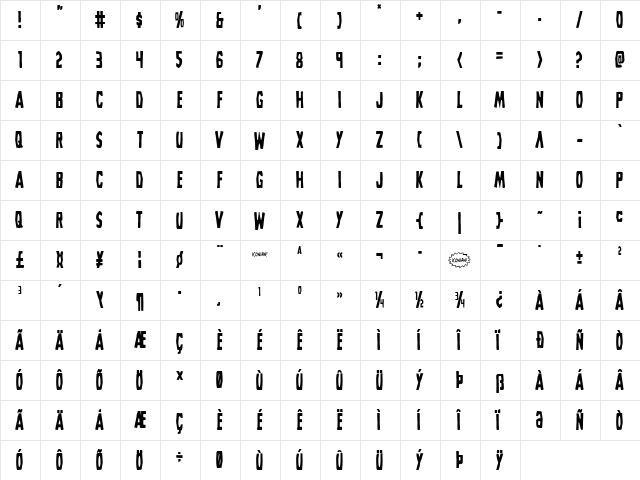
Grim Ghost Condensed Condensed
Design Context for Grim Ghost Condensed Typeface
Grim Ghost Condensed takes a measured approach to typography — its balanced proportions and neutral character make it a reliable workhorse for both digital and print work. Its narrow stance lets it pack a punch even in space-constrained designs.